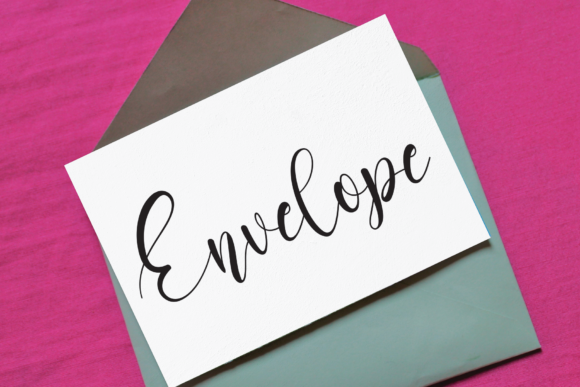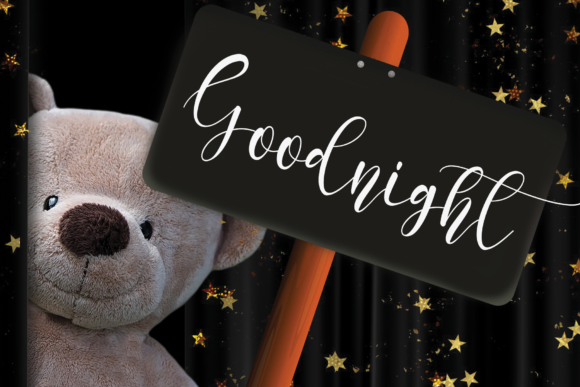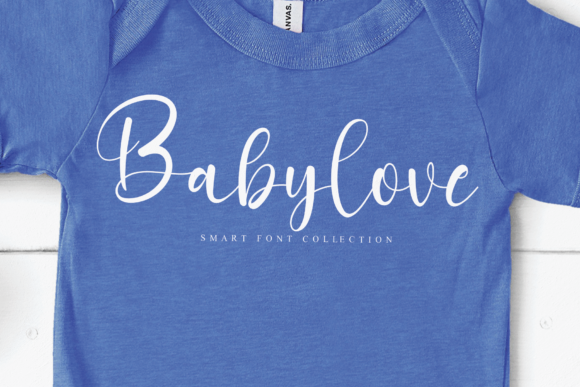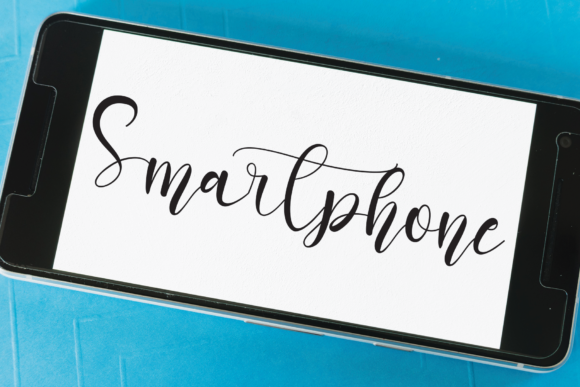
Hartford Font: Elevate Your Designs with Elegance and Versatility
Are you on the hunt for a font that exudes sophistication, elegance, and versatility? Look no further than the Hartford Font! This delicate and charming handwritten font is perfect for designers and crafters seeking to add a touch of refinement to their creations. In this article, we’ll dive into the world of Hartford Font, exploring its features, uses, and benefits, as well as provide tips on how to make the most of this stunning font.
What is Hartford Font?
Hartford Font is a beautiful, handwritten font designed to bring a sense of luxury and poise to any design project. Its delicate strokes and elegant lettering make it an ideal choice for a wide range of applications, from wedding invitations and stationery to social media posts and branding materials. Whether you’re a professional designer or a crafty DIY enthusiast, Hartford Font is sure to captivate your audience with its timeless charm.
Features of Hartford Font
So, what makes Hartford Font so special? Here are just a few of its standout features:
- Delicate and elegant: Hartford Font boasts a refined, cursive style that’s perfect for creating sophisticated designs.
- Versatile: This font is incredibly versatile, making it suitable for a wide range of projects, from formal events to everyday branding.
- Handwritten: The organic, handwritten feel of Hartford Font adds a touch of warmth and personality to any design.
- Easy to read: Despite its elegant appearance, Hartford Font is remarkably legible, making it perfect for both headings and body text.
Uses for Hartford Font
The possibilities are endless when it comes to using Hartford Font! Here are some ideas to get you started:
- Wedding invitations: Create stunning wedding invitations, save-the-dates, and thank-you cards with Hartford Font.
- Stationery: Design beautiful stationery, including letterheads, notecards, and journals, featuring Hartford Font.
- Social media posts: Elevate your social media presence with eye-catching posts, quotes, and graphics created with Hartford Font.
- Branding: Use Hartford Font to develop a cohesive brand identity, including logos, business cards, and packaging.
- DIY crafts: Add a touch of elegance to your DIY crafts, such as handmade cards, gift tags, and scrapbook pages.
Tips for Using Hartford Font
To make the most of Hartford Font, follow these expert tips:
- Pair with contrasting fonts: Combine Hartford Font with bold, sans-serif fonts to create striking headings and titles.
- Experiment with colors: Try pairing Hartford Font with a range of colors, from soft pastels to rich jewel tones, to add depth and interest to your designs.
- Play with texture: Add texture to your designs by layering Hartford Font over backgrounds, patterns, or images.
- Keep it simple: Don’t be afraid to use Hartford Font on its own – its elegance and sophistication shine through even without additional design elements.
In conclusion, Hartford Font is a versatile and elegant handwritten font that’s perfect for designers and crafters seeking to add a touch of sophistication to their creations. With its delicate strokes, easy readability, and wide range of uses, Hartford Font is sure to become a favorite in your design arsenal. So why wait? Fall in love with Hartford Font and start creating stunning designs today!